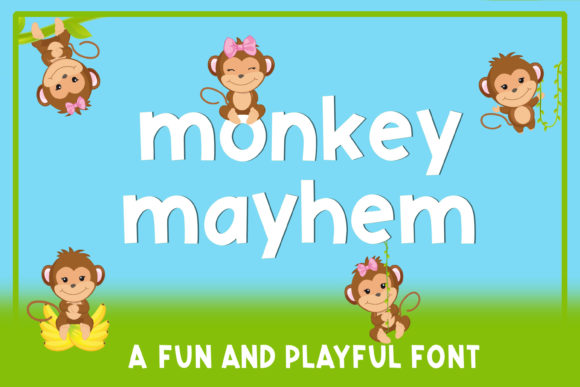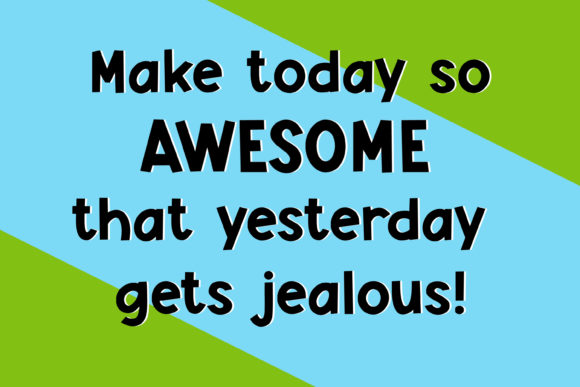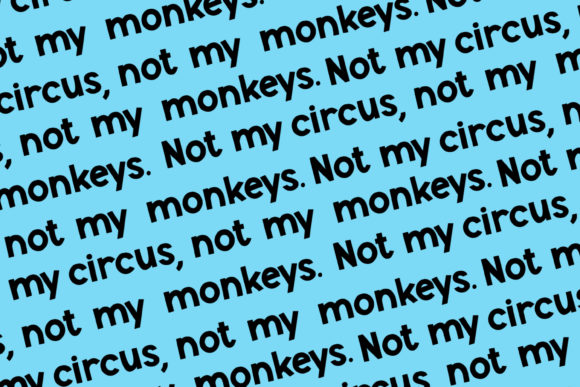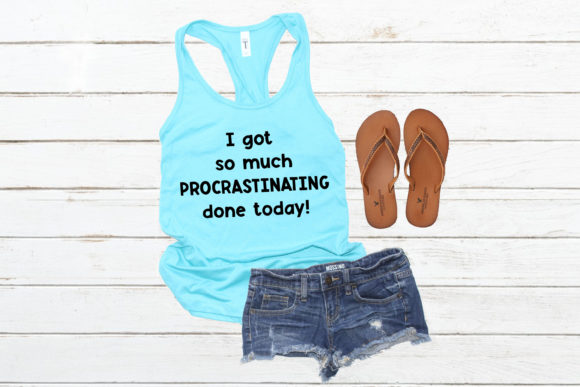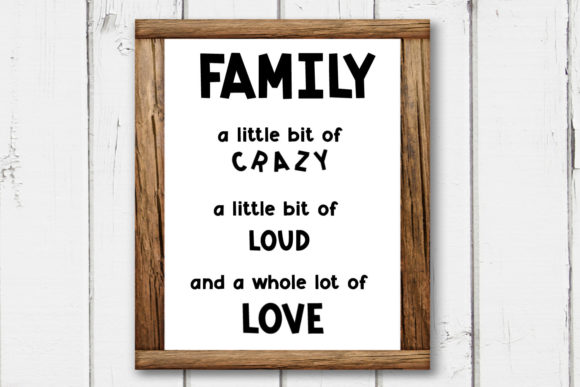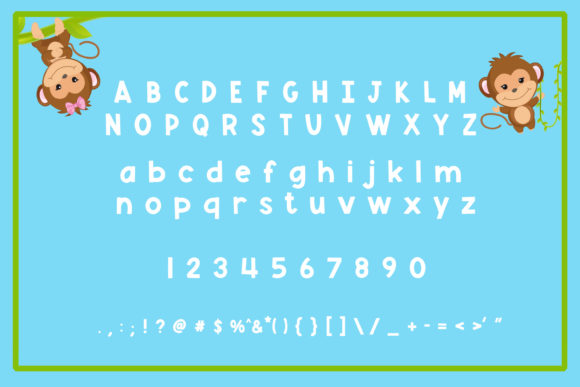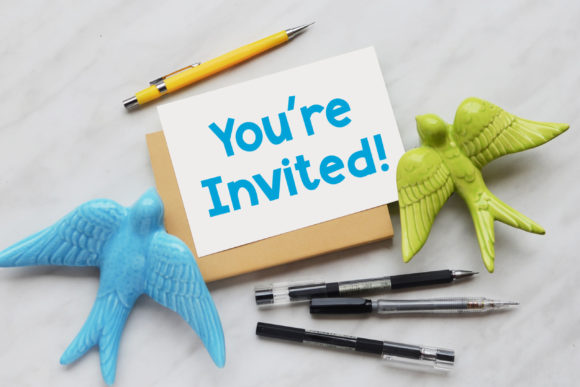
HomeSans Serif FontsMonkey Mayhem Font Sans Serif Fonts Monkey Mayhem Font FacebookTwitterPinterestWhatsApp Monkey Mayhem Font 1 of 7 About Monkey Mayhem Font Monkey Mayhem is a fun and playful sans serif font with a whimsical feel. Get inspired by its modern charm! DOWNLOAD NOW People also explored Brushly Font Jankador Font Gistela Font Raymond Signature Font Nevada Font Continued Font Minimalist Font Lucky Montage Font Umbrella Script Font 151 0 TagsMonkey Mayhem Font Previous articleBlackrough FontNext articleLa Rosie Font LEAVE A REPLY Cancel reply Comment: Please enter your comment! Name:* Please enter your name here Email:* You have entered an incorrect email address! Please enter your email address here Website: Save my name, email, and website in this browser for the next time I comment. Personal Use Free Rosebirth Personal Use Free Read more about this font Yumail Personal Use Free Read more about this font Sebastopol Personal Use Free Read more about this font Kilsonburg Personal Use Free Read more about this font BLOG Transform Your Website: Elevate Your Typography with 7 Best Web Font Generators Are you ready to transform your website's typography from ordinary to extraordinary? Great! Today, we're diving into the world of web font generators, which... The 10 Best Handwriting Fonts to Add Personality to Your Designs Free vs Paid Fonts: Why Investing in Premium Fonts Is Worth It Elegant Wedding Invitation Fonts – Handwritten & Script Fonts